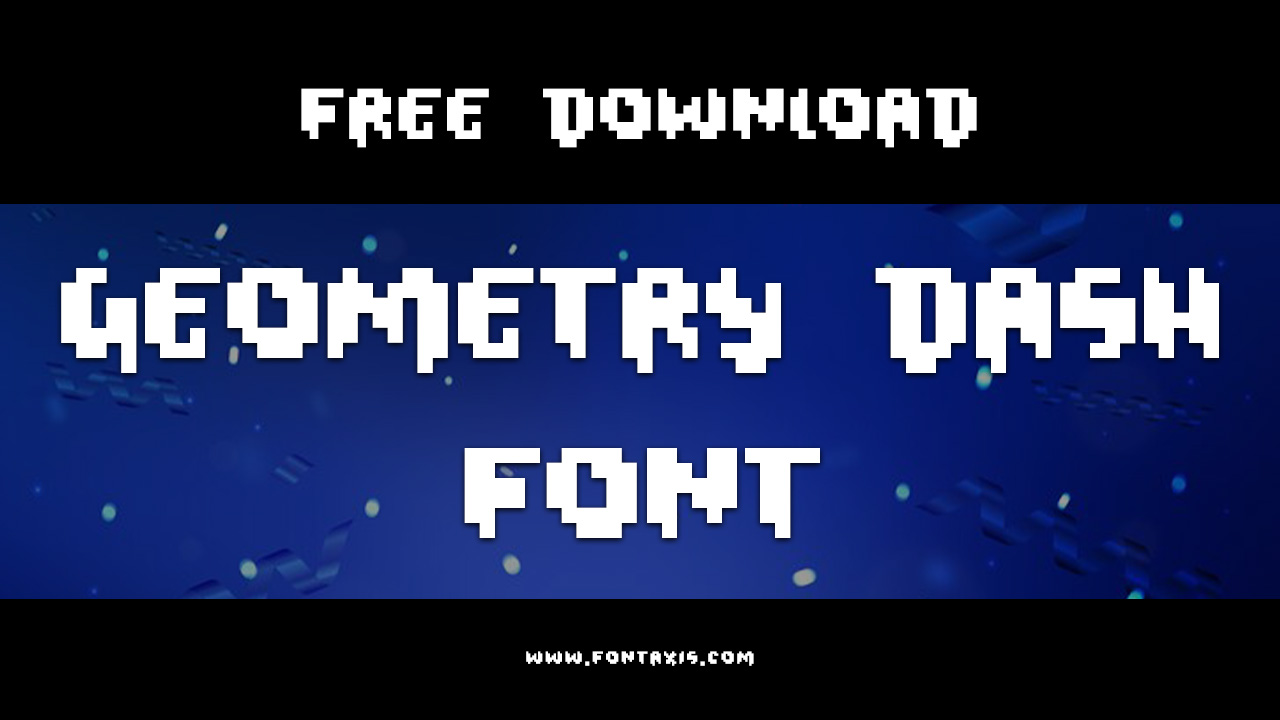
The Geometry Dash Font, a combination of Oxygene 1 and Pusab Font, is a bold and playful typeface created by Jakob Fischer.
First used in the popular rhythm-based game Geometry Dash (2013), this font has become a favorite for its vibrant, geometric, and creative style. Perfect for gaming, banners, posters, and personal projects, it brings energy and charm to any design.
| Style | Pixel (Oxygene 1), Bubble (Pusab) |
Where Geometry Dash Font Is In Use
- Gaming: Geometry Dash game titles, UI, and in-game text.
- Graphic Design: Banners, logos, posters, and comic-style art.
- Personal Projects: Custom memes, email designs, or web visuals.
- Educational: Scratch projects, drawings, and classroom materials.
- Advertising: Bakery products, children’s products, or fun branding.
- Combine Oxygene 1 with Roboto for modern designs.
- Pair Pusab with Montserrat for vibrant, dynamic visuals.
The Geometry Dash Font is a versatile and eye-catching typeface that perfectly complements creative and gaming-inspired projects.
With its bold design and unique blend of Oxygene 1 and Pusab Font, it has become a favorite for logos, banners, and personal use. Whether you’re designing for fun or creating professional visuals, this font offers a playful yet professional touch that stands out in any setting.
5.What Makes This Font Unique?
Its playful, pixelated, and bubble designs resonate with gaming and fun themes, making it stand out.